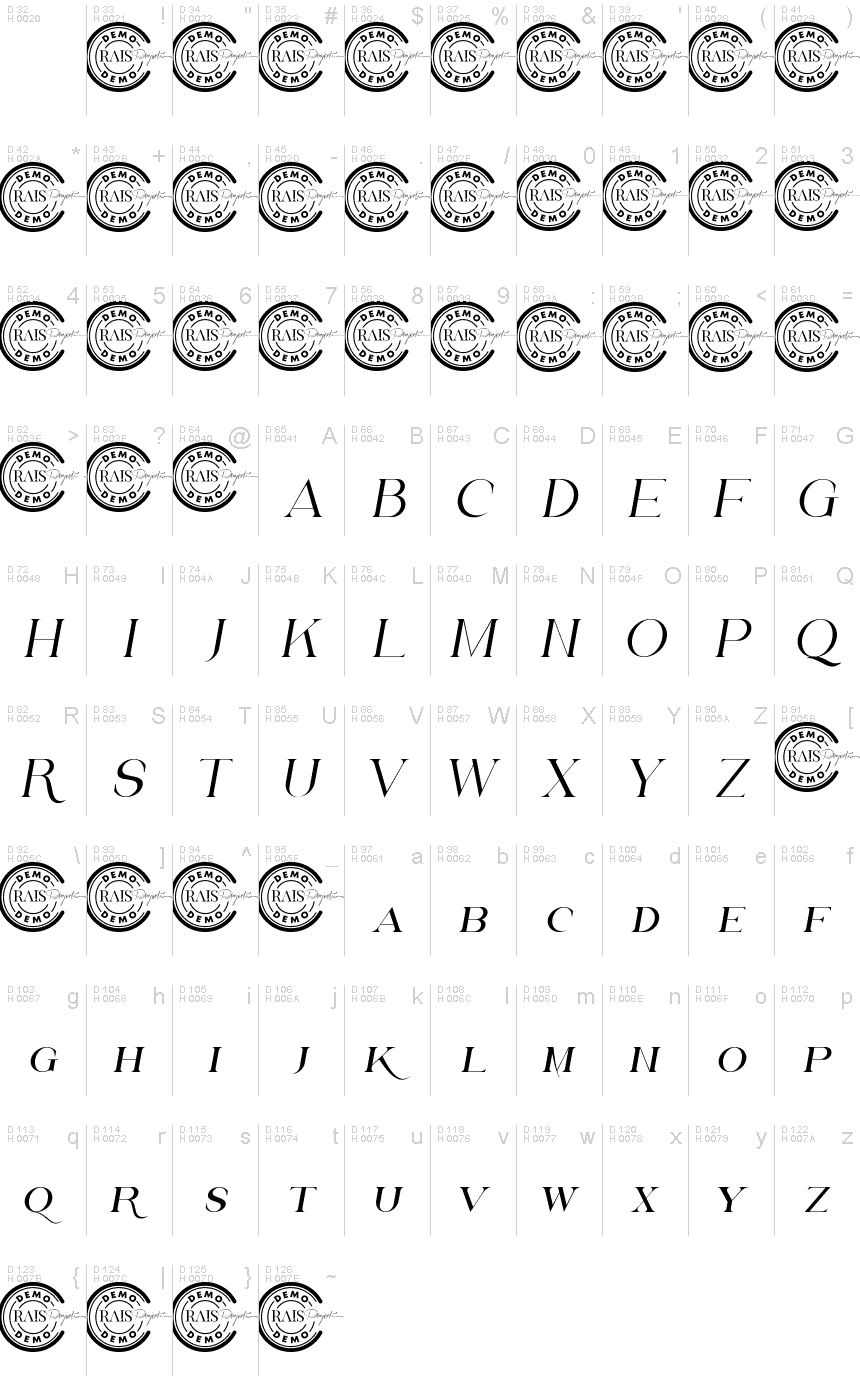
Chamberlain Italic is a light serif font designed by Widiyanti & Sarah SP. Perfect for creative projects, it adds a unique, professional touch to your designs. Use Chamberlain Italic to make an impression with magazines, logos, signage, and websites.
Chamberlain Demo